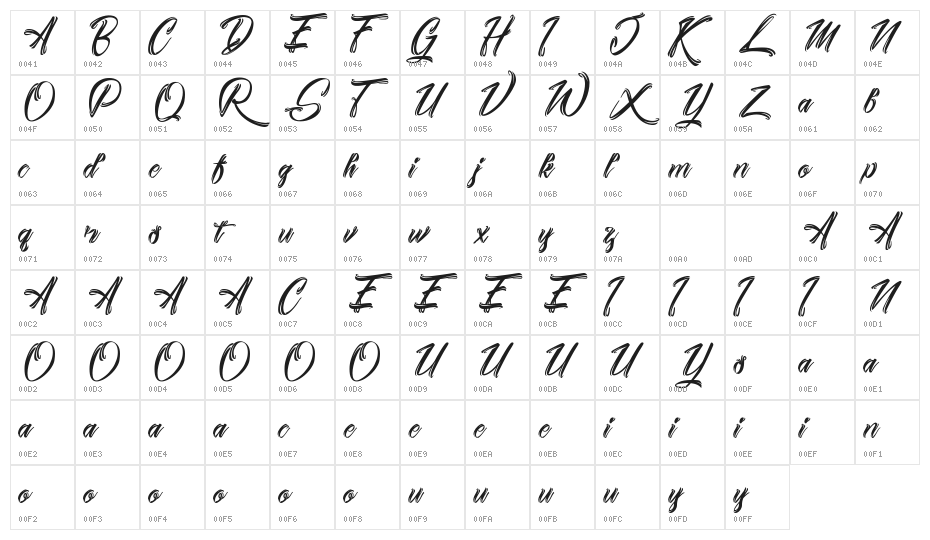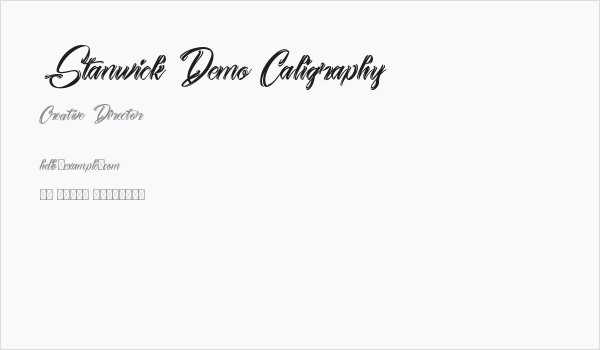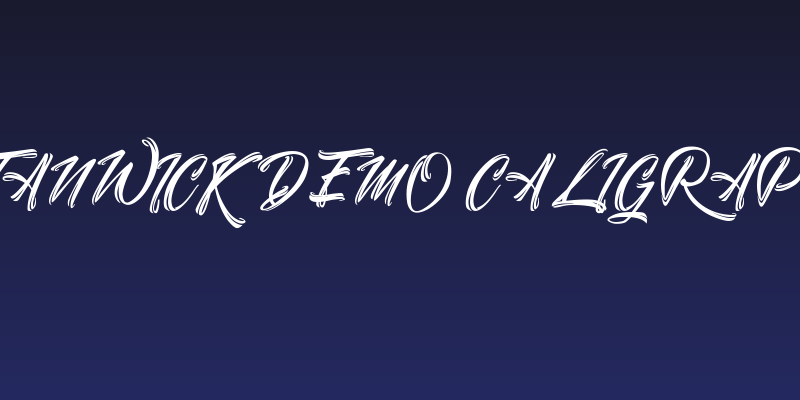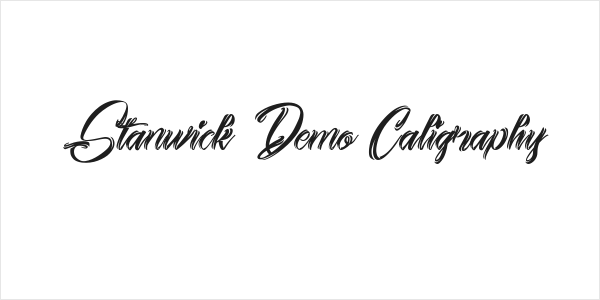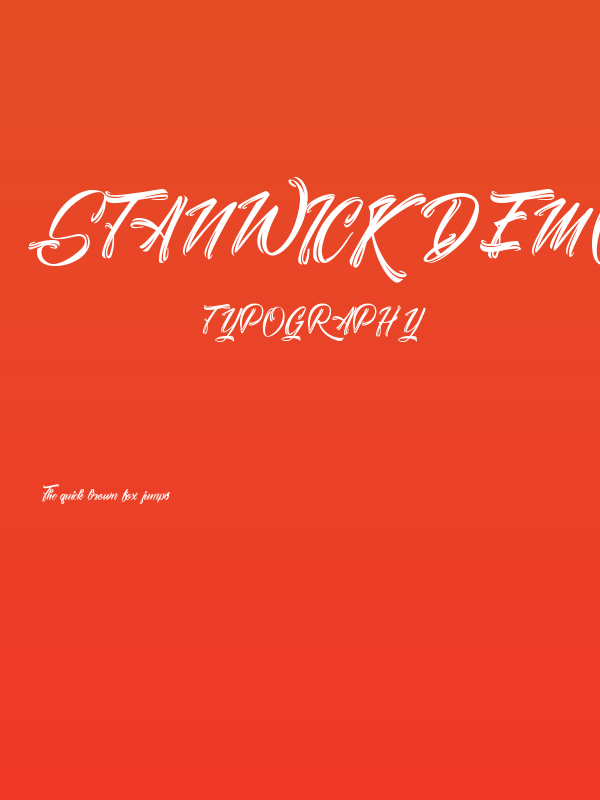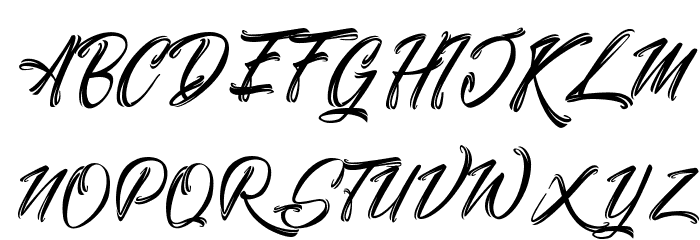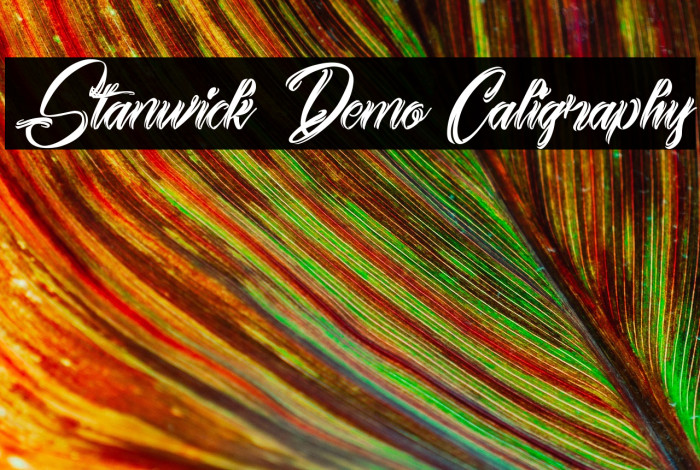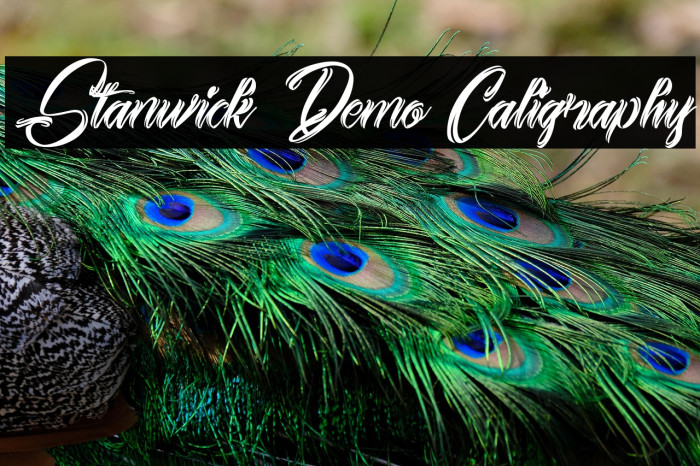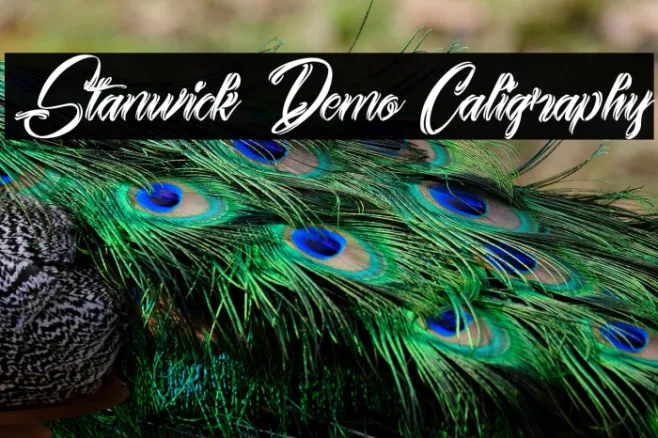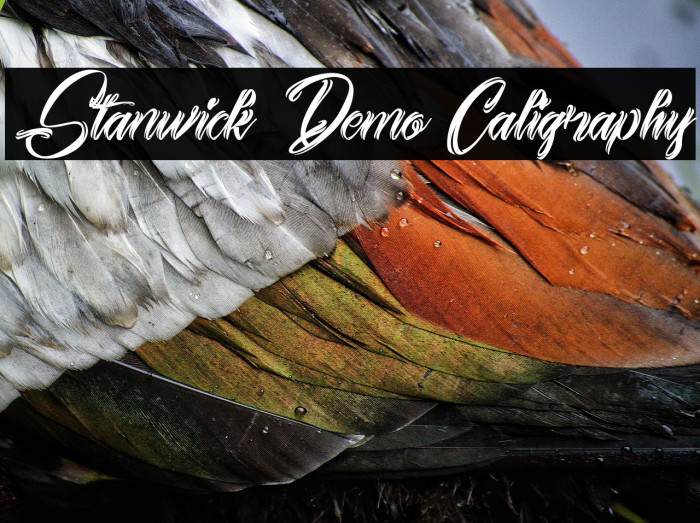
Stanwick Demo Caligraphy Font
Stanwick Demo Caligraphy Description
This font exhibits a dynamic and flowing calligraphic style, characterized by its elegant and artistic strokes. The letters are crafted with a sense of movement, featuring sweeping curves and flourishes that give it a sophisticated and ornate appearance. The uppercase and lowercase letters maintain a consistent style, with the uppercase letters being particularly elaborate. The numbers and special characters are designed to complement the overall aesthetic, ensuring a cohesive look across all glyphs. This font is ideal for projects that require a touch of elegance and creativity, making it suitable for invitations, branding, and decorative purposes.
| Proposed Projects | Ideal for wedding invitations, branding, decorative projects, and artistic designs. |